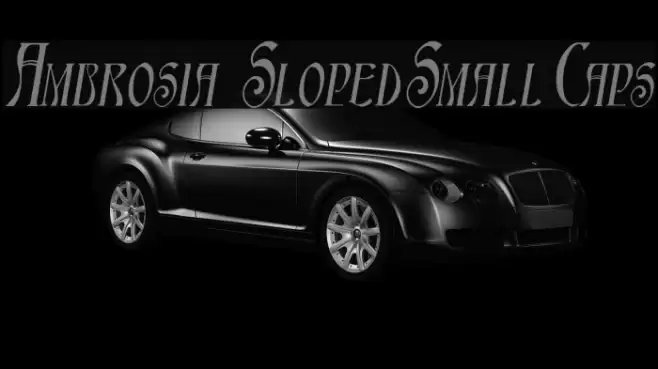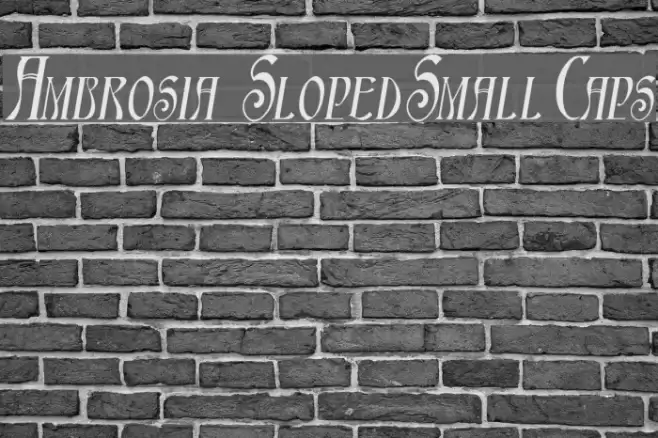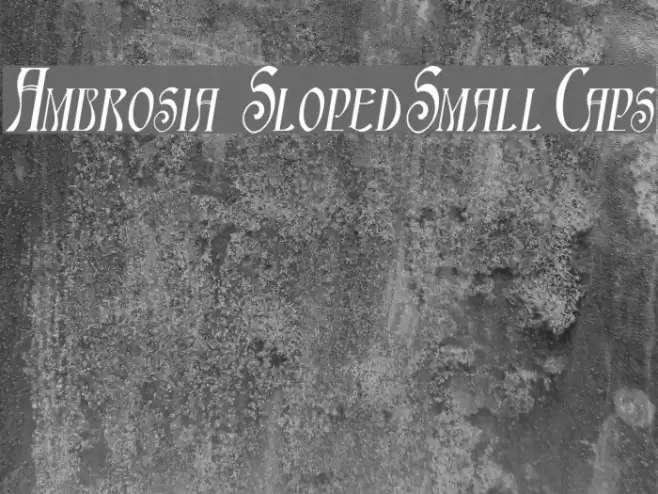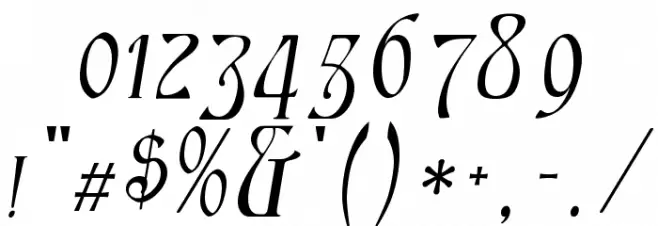
Ambrosia SlopedSmallCaps Font
Ambrosia SlopedSmallCaps Description
This font features a unique blend of elegance and flair, characterized by its sloped small caps and decorative elements. The uppercase letters exhibit a distinct slant, adding a dynamic and sophisticated touch. The lowercase letters maintain a consistent style, complementing the uppercase with their own subtle curves and angles. Numbers and special characters are designed to match the overall aesthetic, ensuring a cohesive look across all text. The font's artistic flair makes it suitable for creative and expressive projects.
A decorative font with sloped small caps and artistic flair from Uncategorized fonts.
- Proposed Projects: Ideal for branding, invitations, posters, and artistic projects that require a touch of elegance and creativity.
- Use Case: Logos, Headlines, Artistic projects